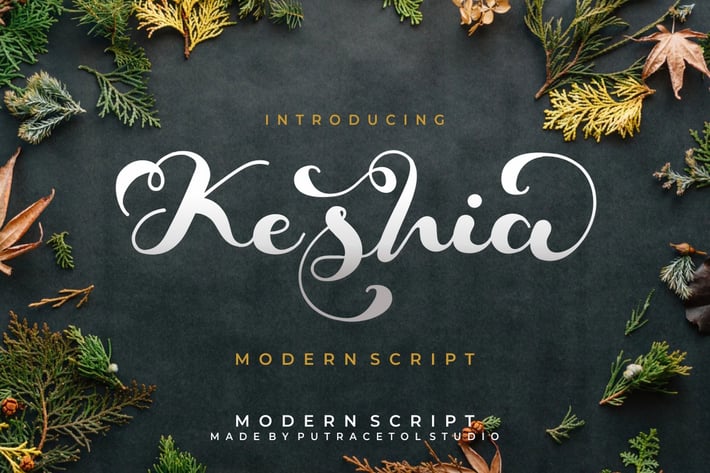
Keshia - Modern Script Font
Keshia
Introducing Keshia, a fun and fancy script font with a lot of alternates character. the flourish is unique, its help you to make a wonderful lettering.
Keshia is perfect for logotype creation, lettering compositions, wedding invitations, fashion projects, book design cover, magazines typography, cards, packagings, posters, branding and more.
Come with Opentype feature with a lot of alternates, its help you to make great lettering.This font is also support multi language.
Comes with feature :
Alternate
Number, Punctuation And Symbols
Multilanguage Support.